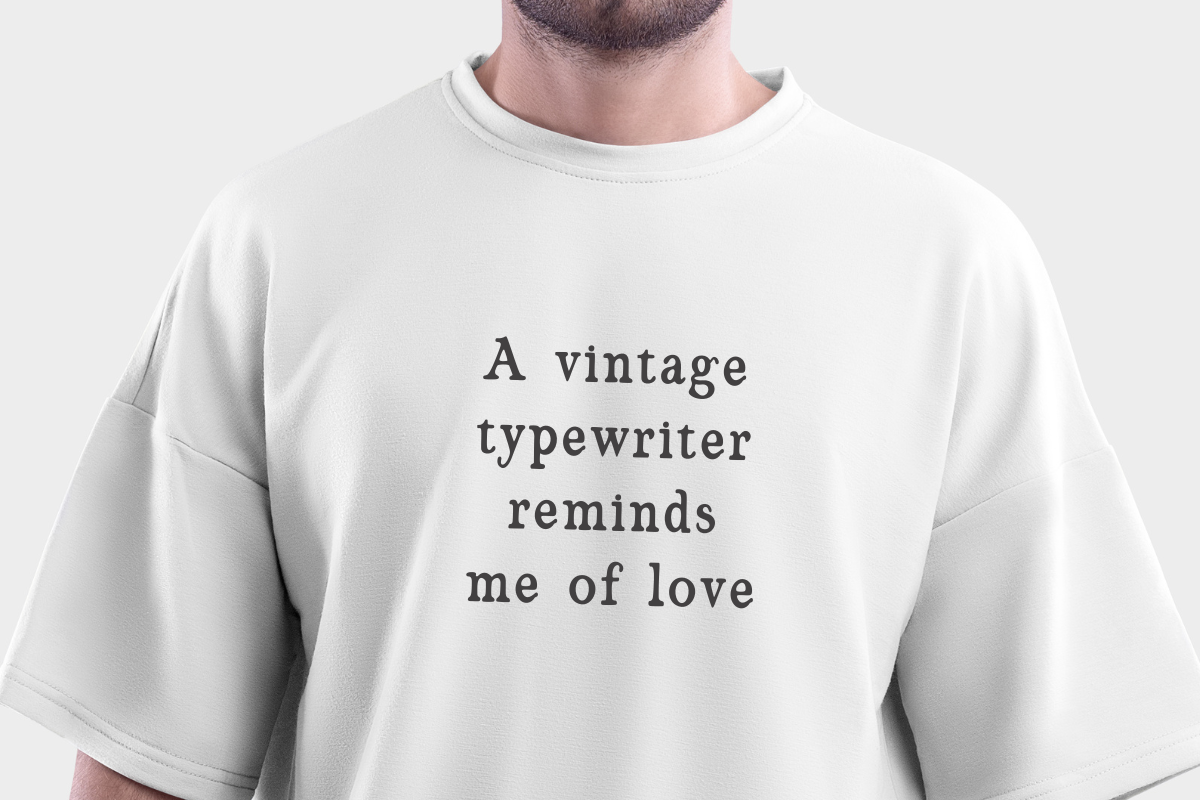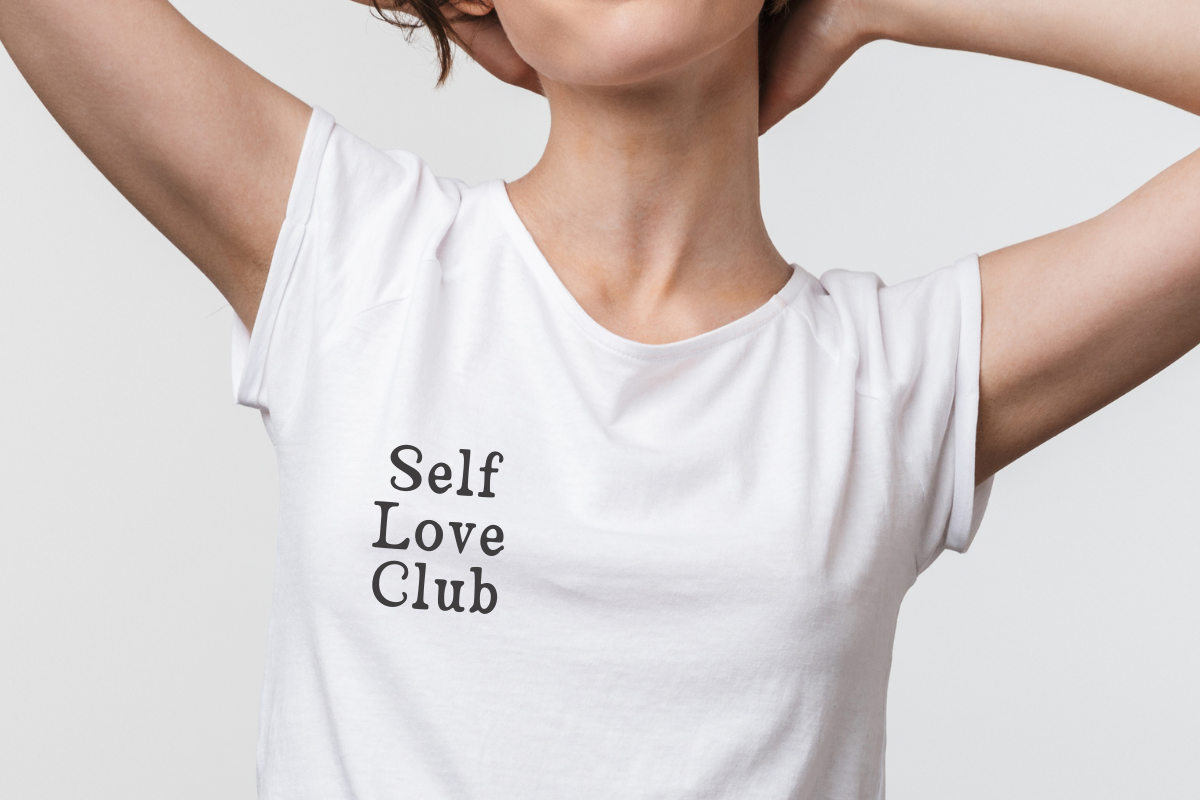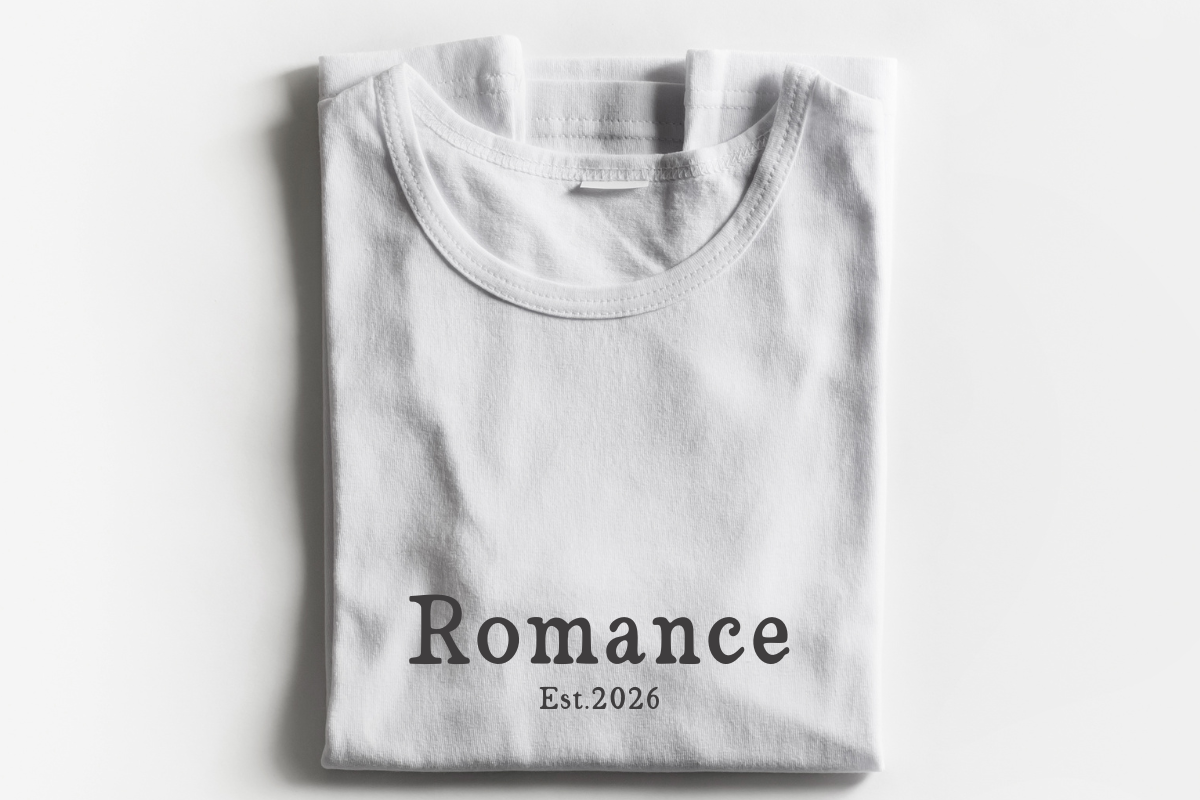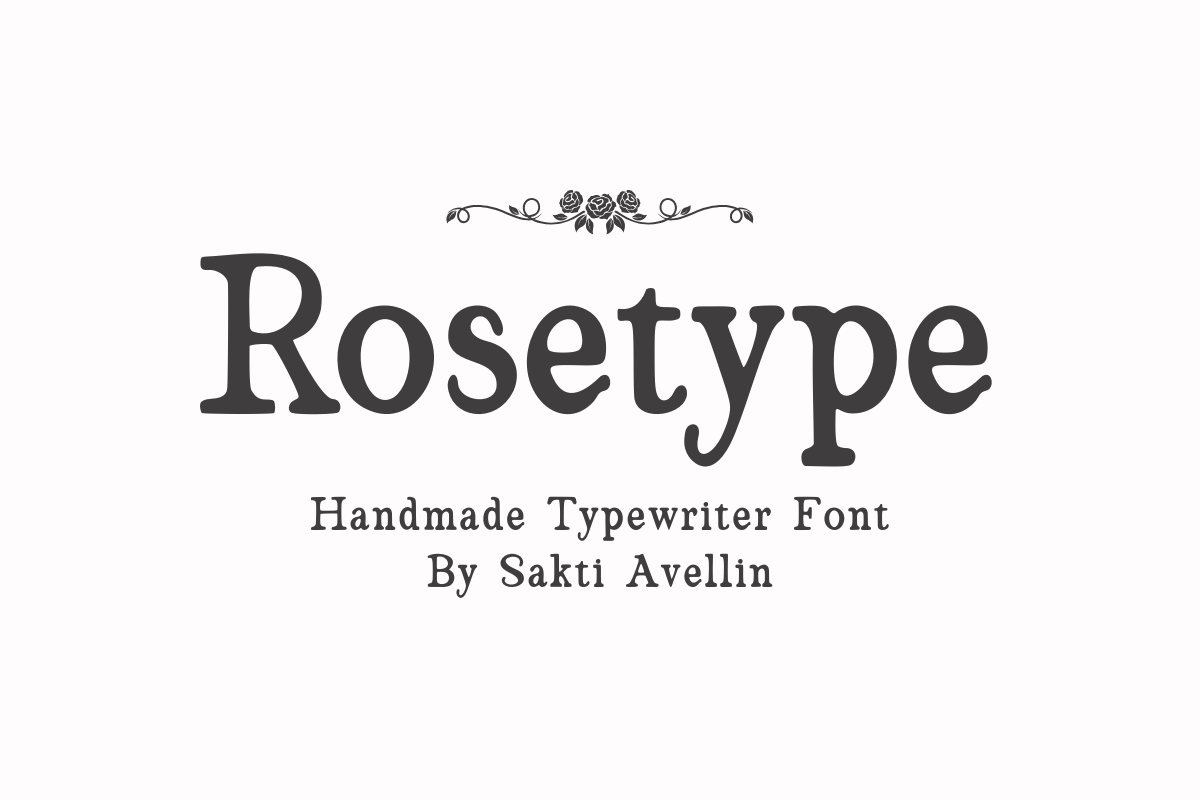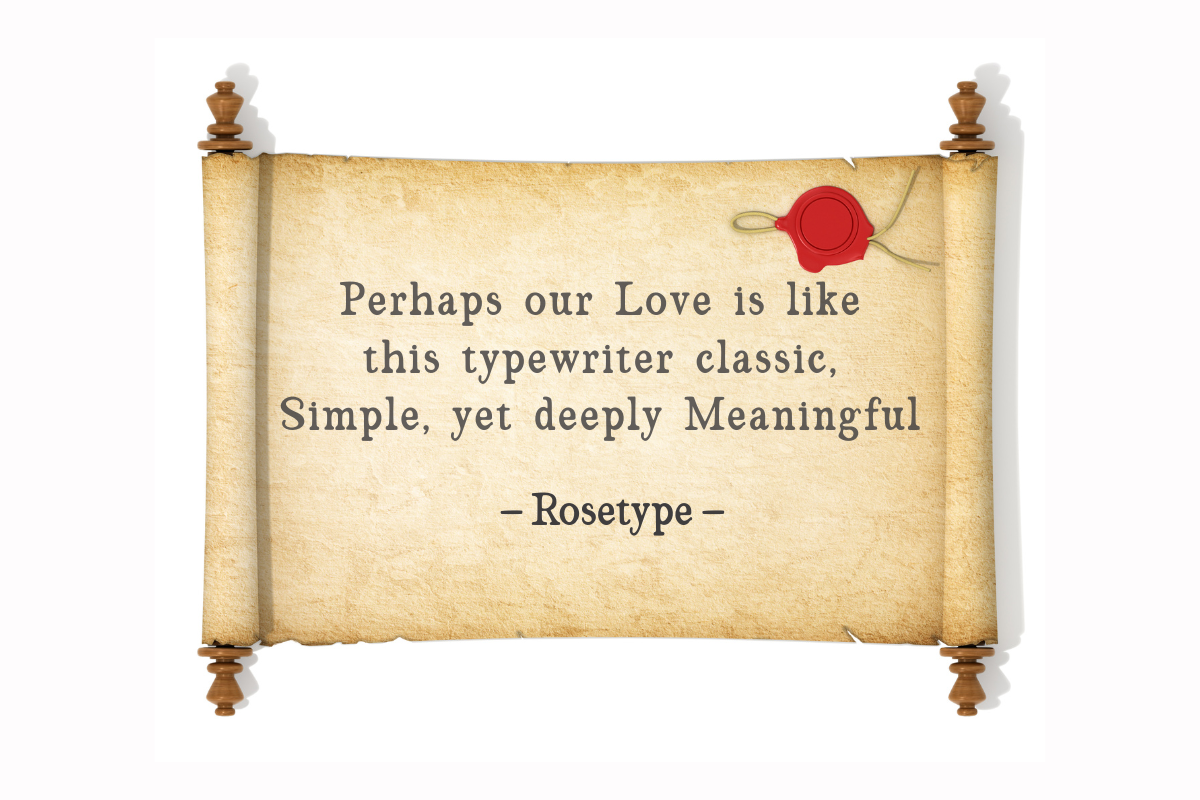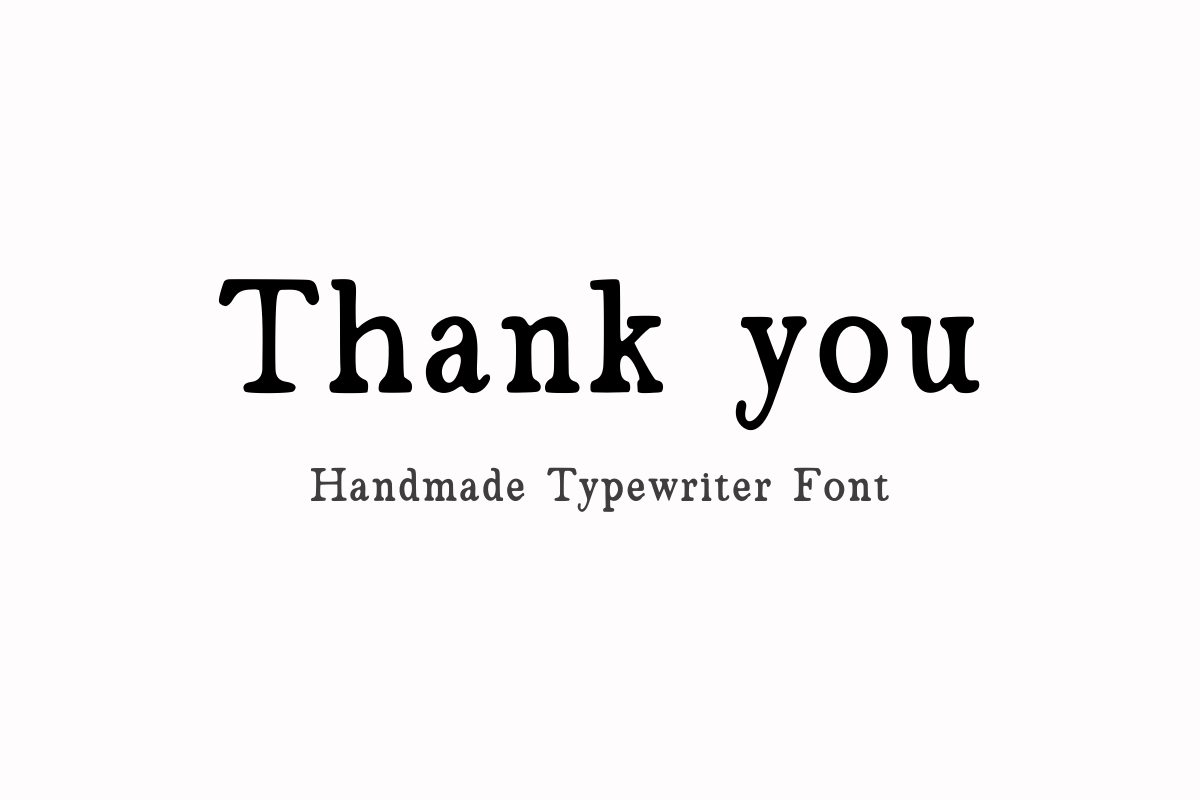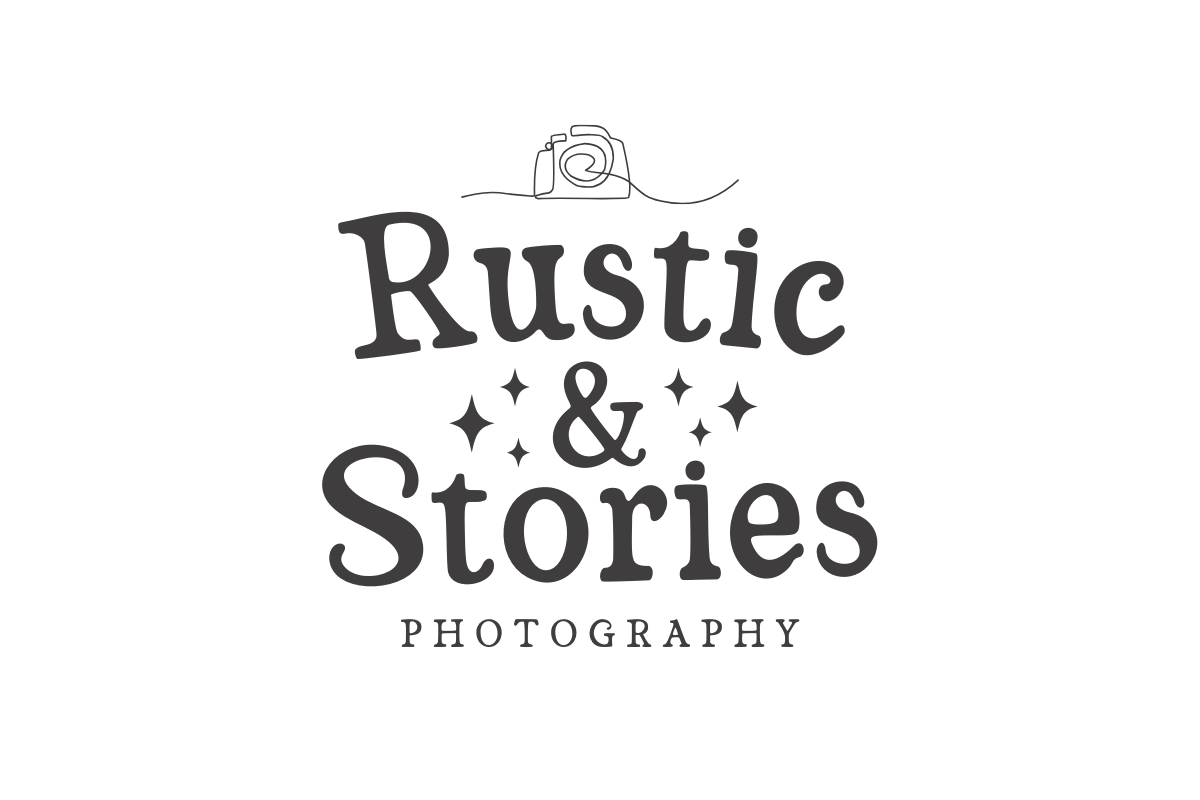
Rosetype - Handmade Typewriter Font
Rosetype is a distinctive and charming handmade typewriter font that blends classic vintage elegance with a crafted, imperfect texture. This versatile serif font features a subtle aged look, making it essential for vintage branding, authentic wedding invitations, elegant stationery, mood boards, and unique historical or editorial content. Its clear yet slightly worn style ensures it is a powerful text and display typeface for headlines and extended copy, appealing to designers seeking a nostalgic, romantic, and sophisticated aesthetic. Add a touch of timeless, handcrafted elegance to your creative projects with this beautiful old typewriter font!